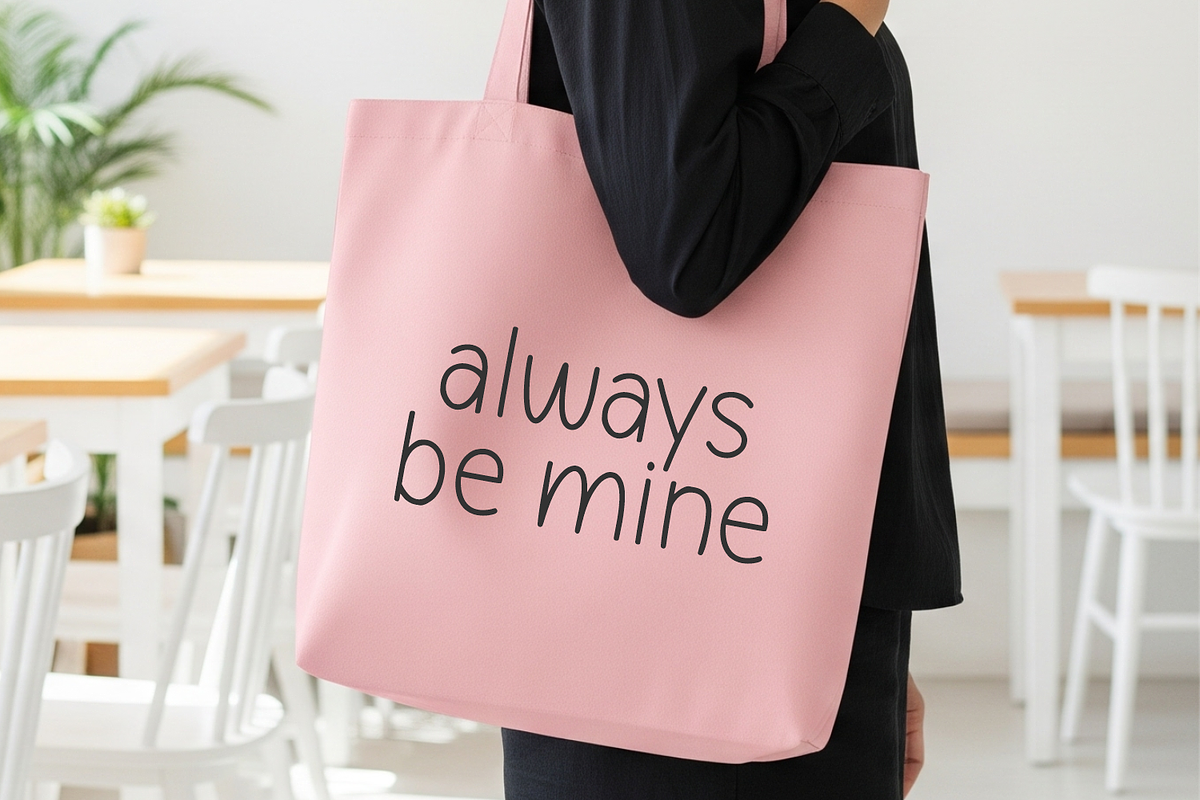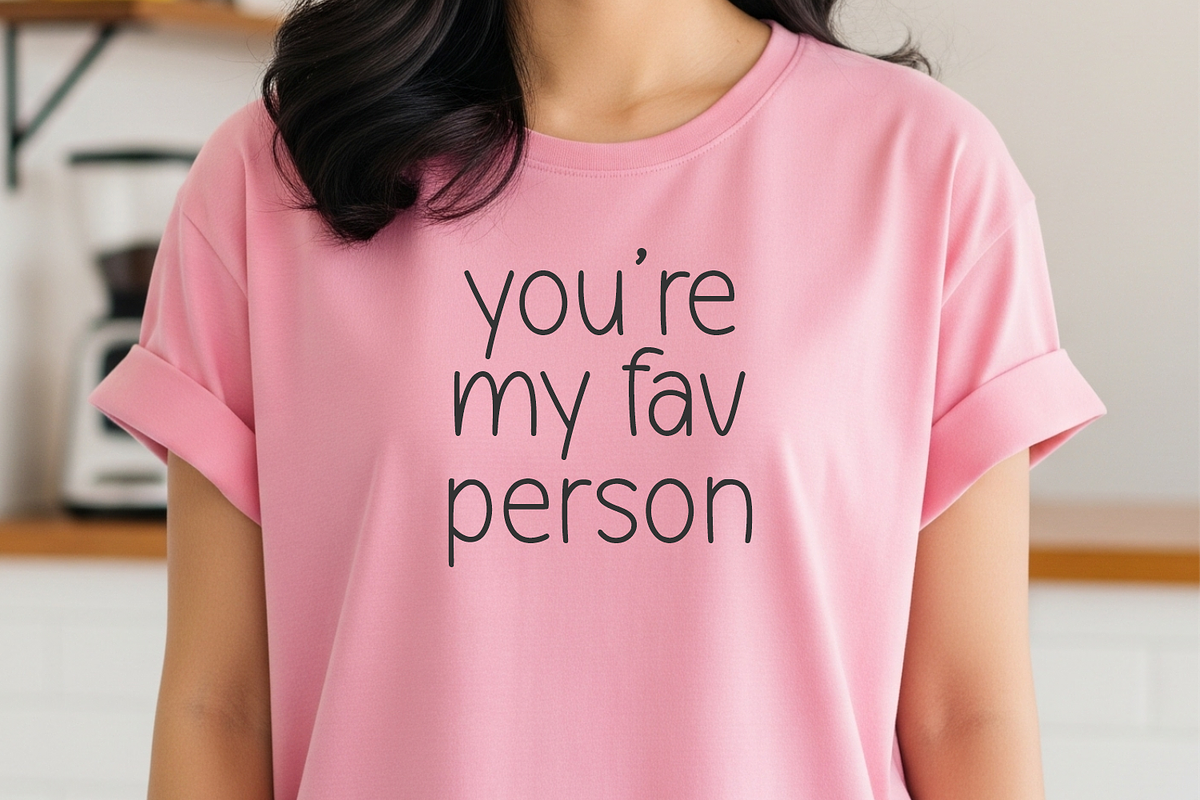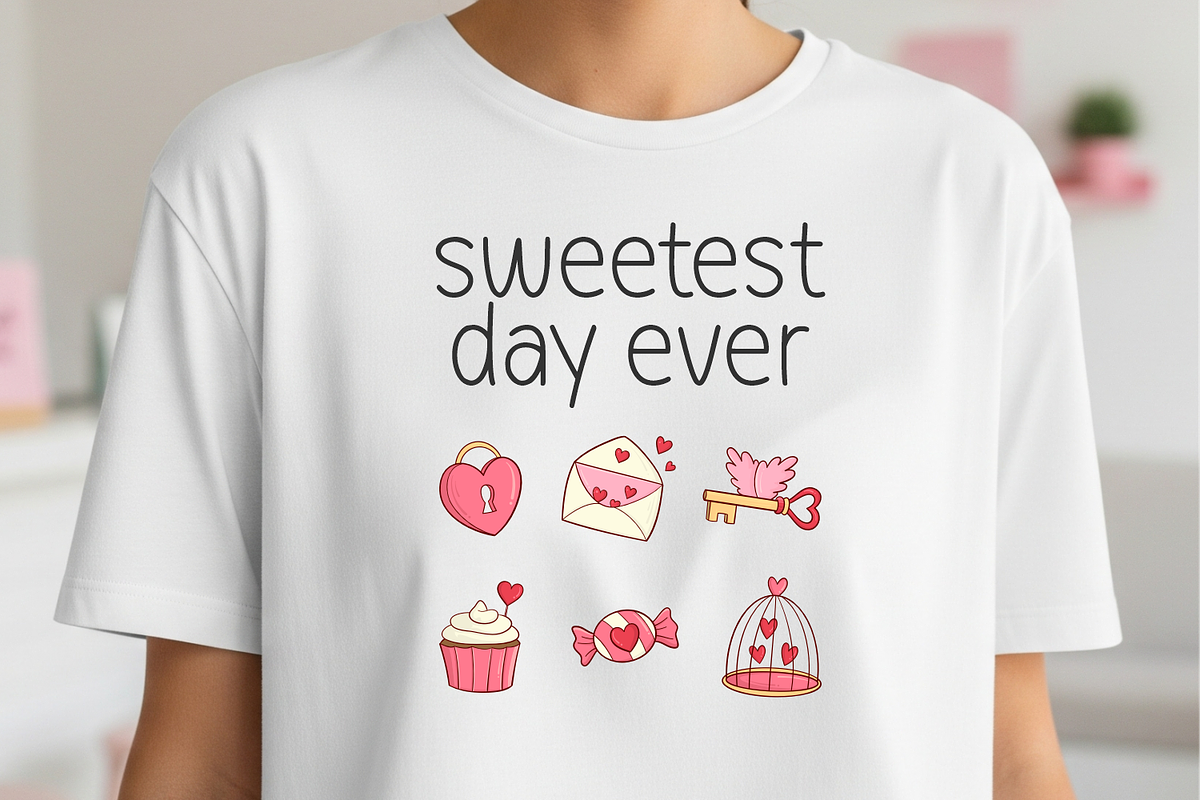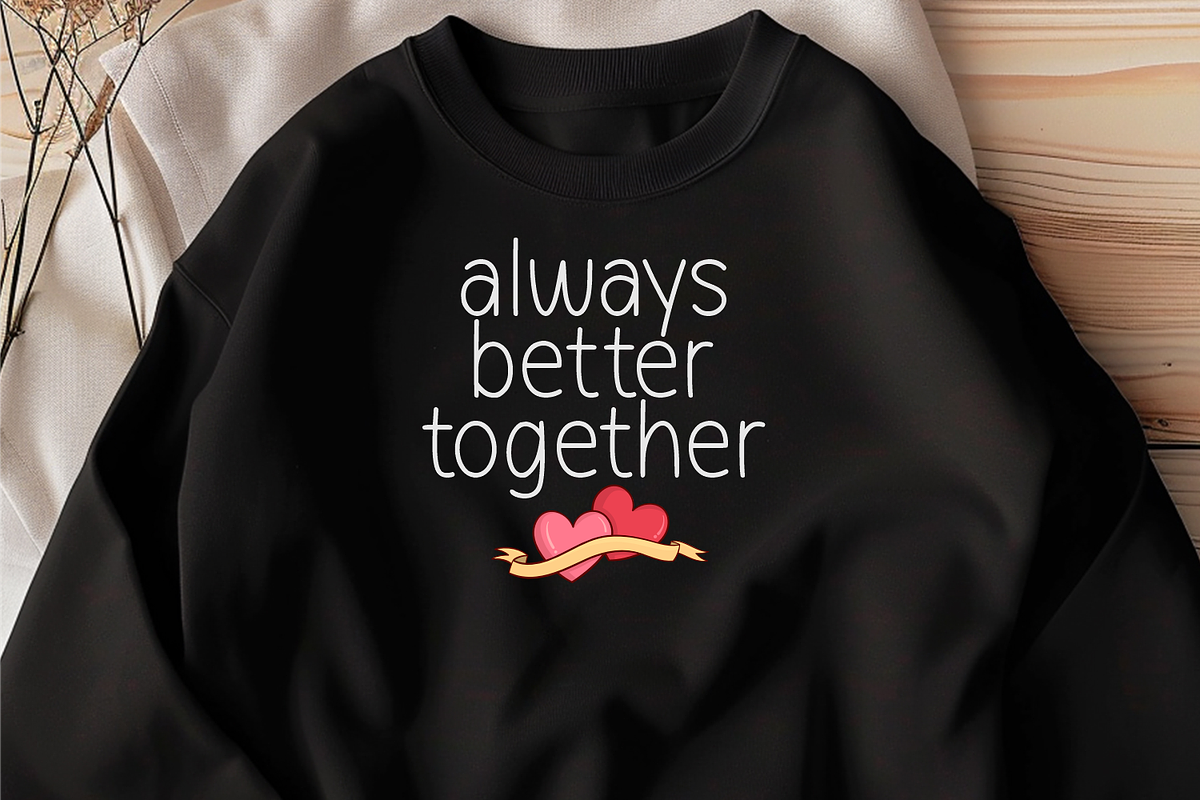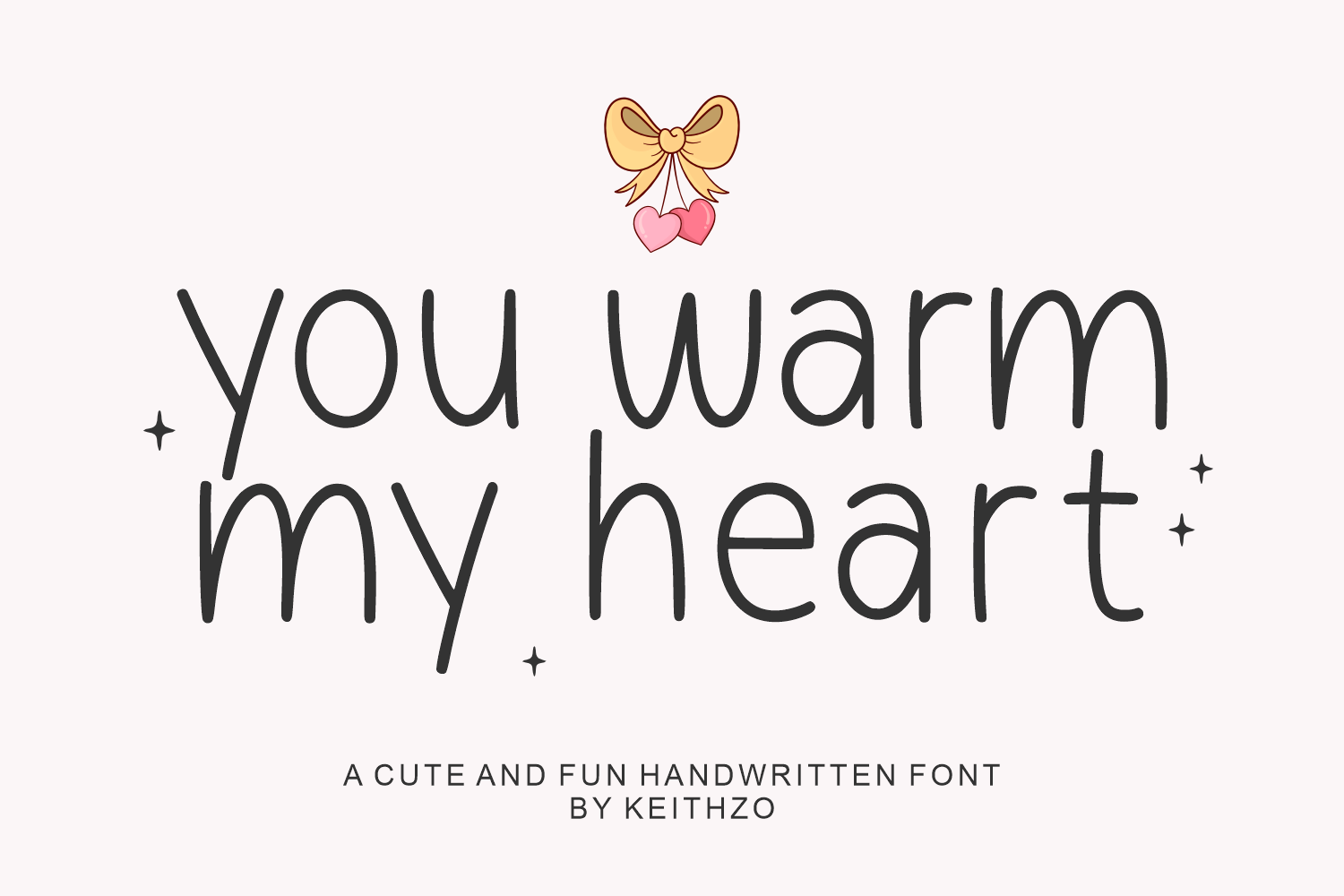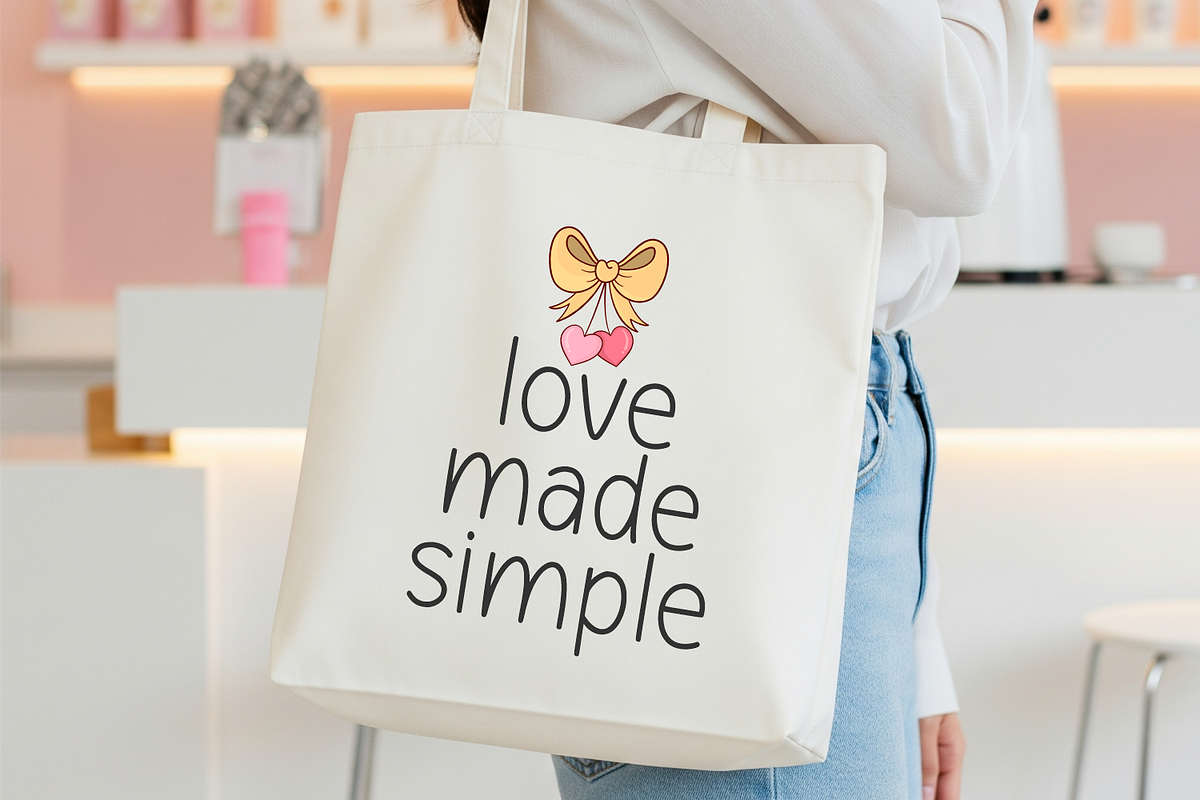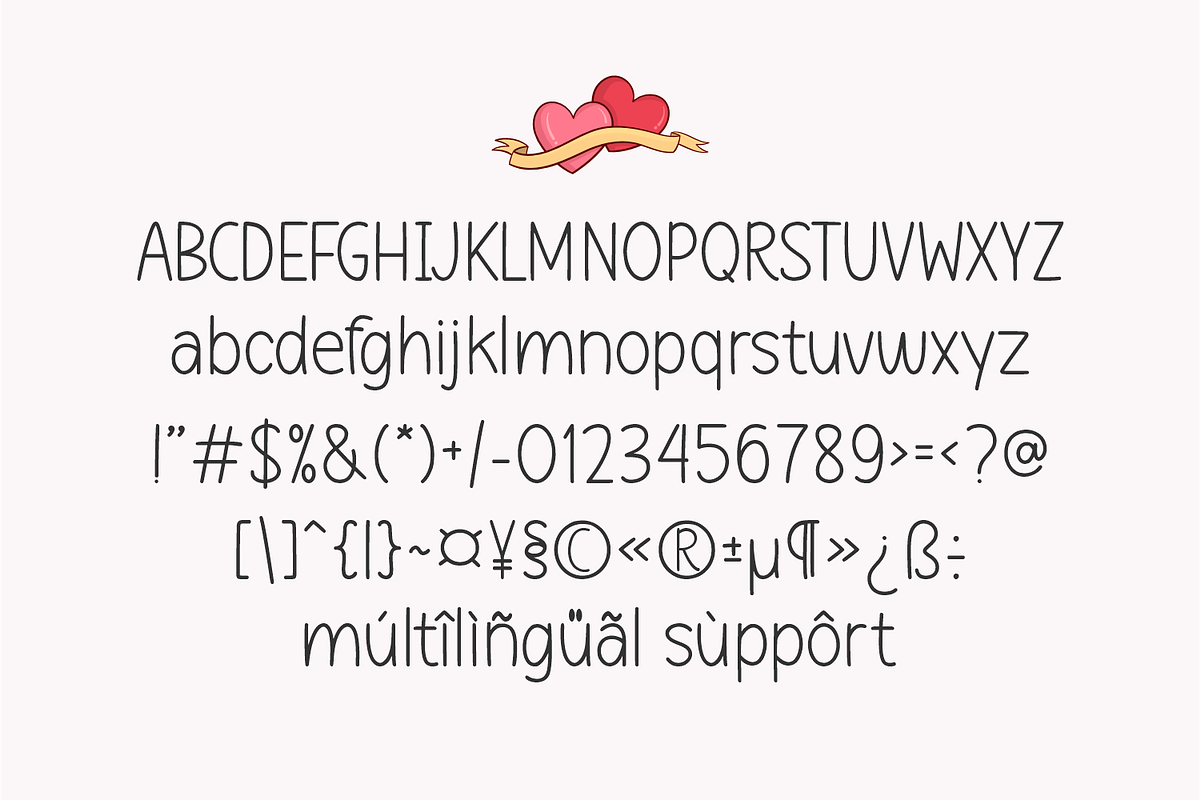
You Warm My Heart - Valentine's Font
Unveiling ‘You Warm My Heart’, an irresistibly delightful handwritten font, brimming with heartwarming charm!
Emanating affection and joy in every stroke, this font embodies the essence of a love-infused missive. Its amiably rounded characters, coupled with a playful rhythm, render the truly endearing vibes of authentic sentiment. It’s the quintessential font for showcasing your love-laden sentiments on romantic gifts and attire, such as quote-inscribed sweatshirts lauding a lovely togetherness or tees parading you as someone’s beloved.
Perfectly poised for Valentine’s Day deployments, ‘You Warm My Heart’ elevates any project with its engaging fusion of legibility and mirth, making it an impeccable selection for children’s literature, instructional material, nursery artworks, and family-inspired illustrations. Conceived as an enchantingly lighthearted handwritten font, it infuses your logos and branding with a distinctively personal, tastefully accessible, and profoundly heartfelt flair.